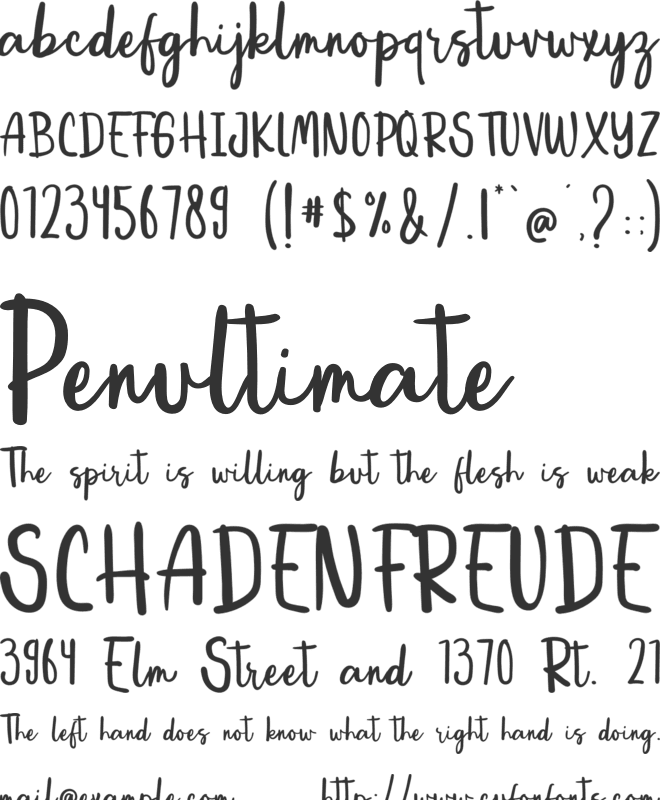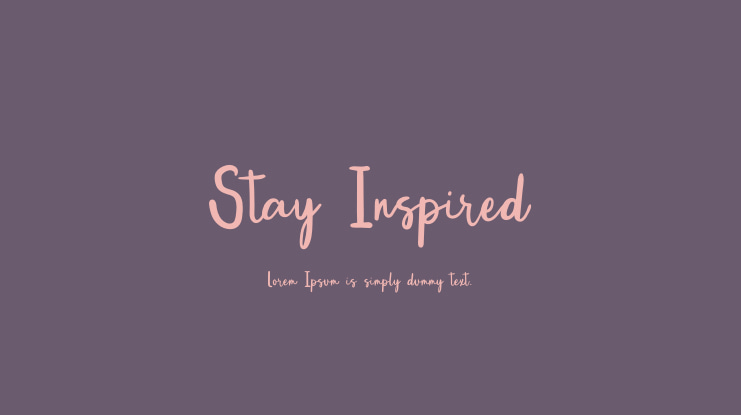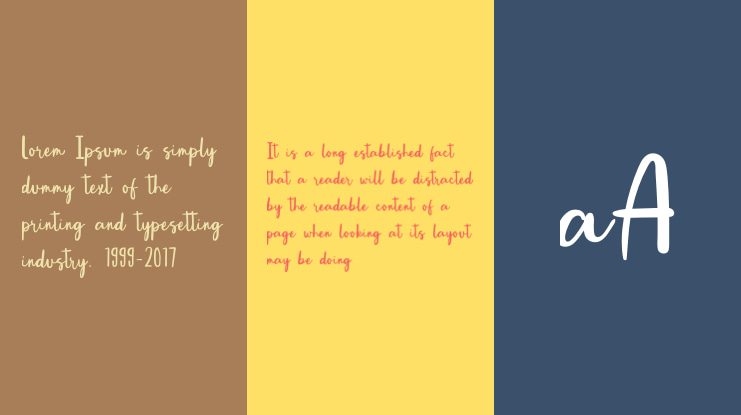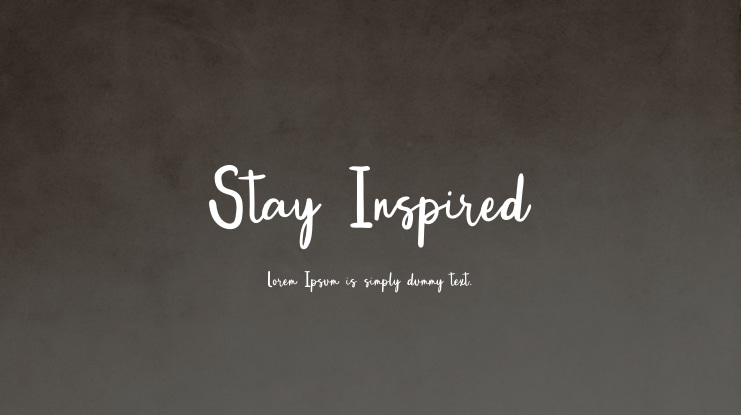
Stay Inspired Font
Stay Inspired is a captivating handwritten font that exudes a natural and authentic charm. With its organic strokes and smooth flow, it brings a sense of warmth and creativity, making it perfect for a wide range of design projects.